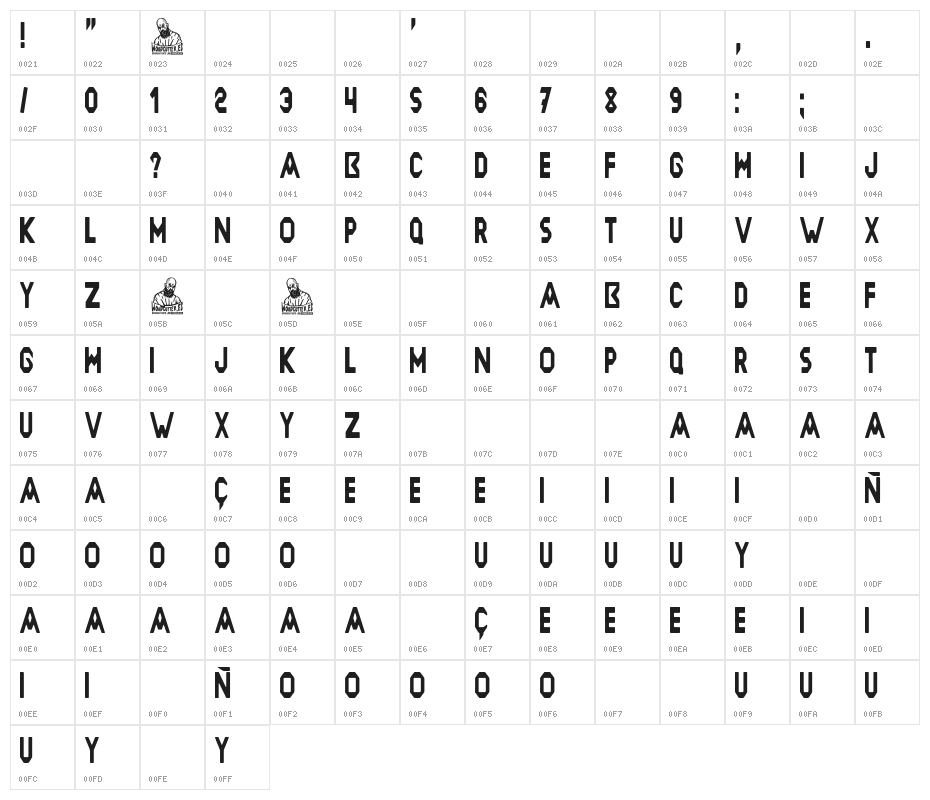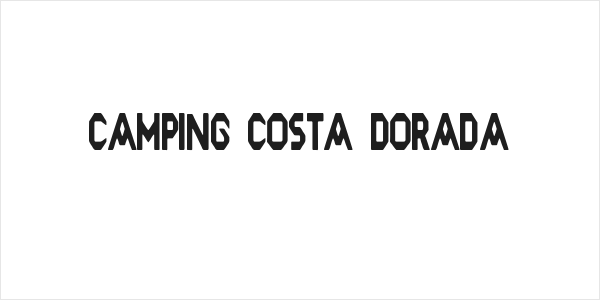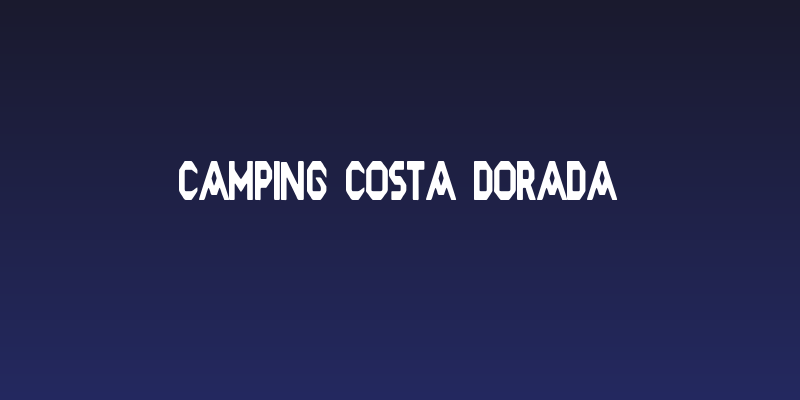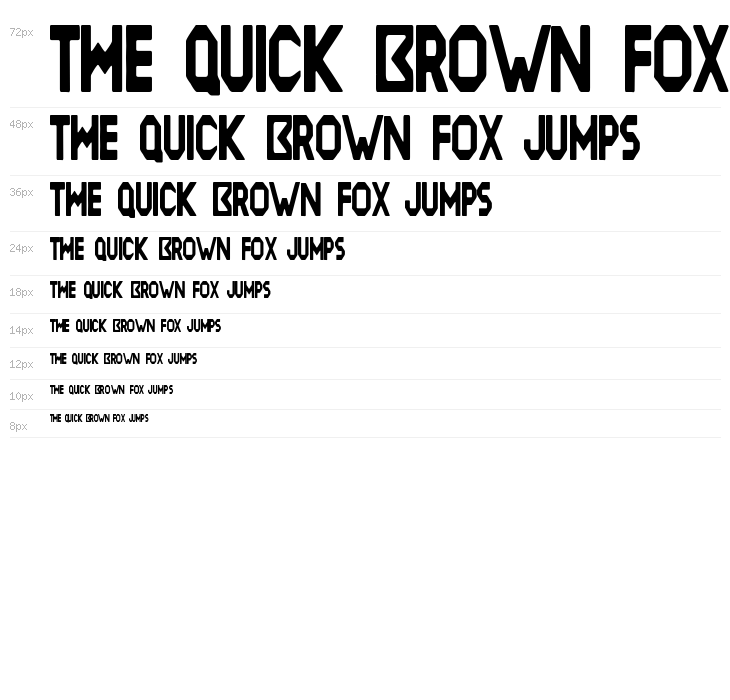
Camping Costa Dorada Font
Camping Costa Dorada Description
A bold, geometric display font with angular, blocky letterforms and uniform stroke thickness. The characters have a stencil-like appearance with sharp corners and straight lines, giving a rugged and industrial feel.
| Overall Style | Decorative, Industrial, Modern |
| Use Case | Headlines, Logos, Posters, Signage |
| Proposed Projects | Posters, signage, branding for outdoor or adventure themes, event titles, merchandise. |